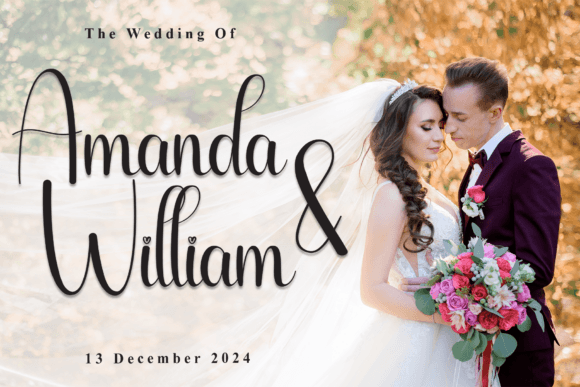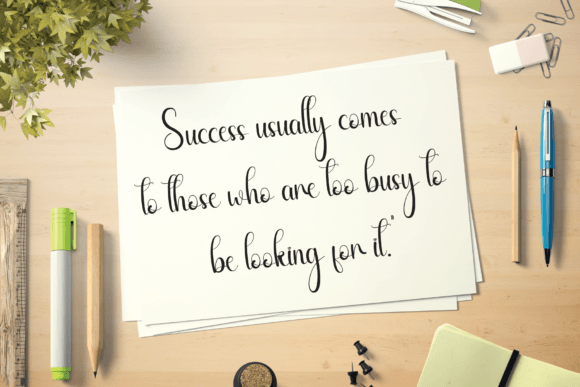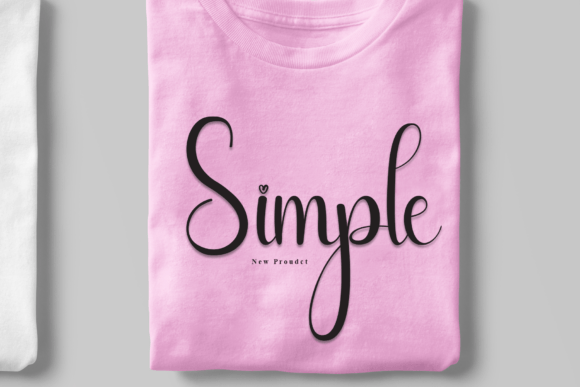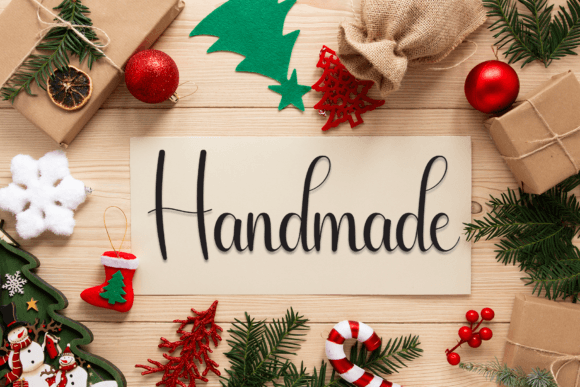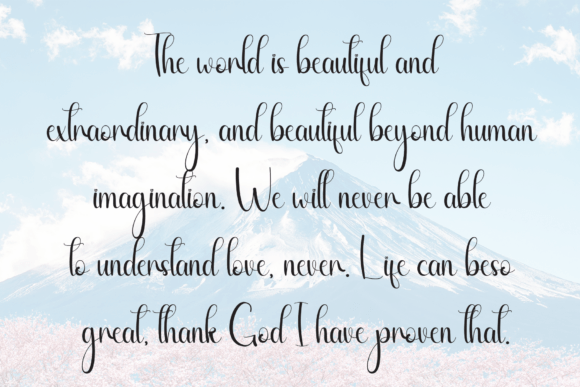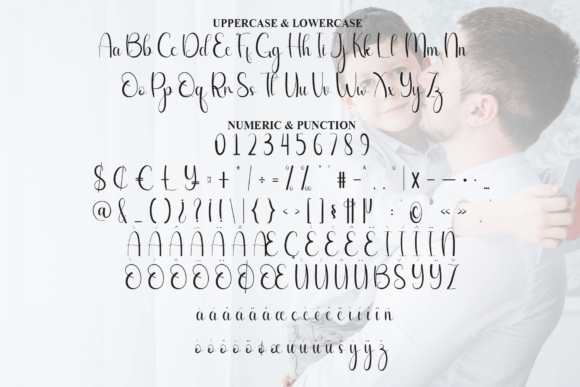
The Ultimate Guide to Daddy Font: Adding a Touch of Whimsy to Your Designs
I’ll never forget the time I was working on a wedding invitation project, and my client asked me to create a custom font that would capture the playful and romantic essence of their special day. I spent hours scouring the internet for the perfect font, but nothing seemed quite right. That’s when I stumbled upon Daddy Font, and it instantly became the perfect fit. In this article, I’ll share my love for this irresistibly charming handwritten display font and provide you with a comprehensive guide on how to use it in your designs.
What Makes Daddy Font So Special?
Daddy Font is a delightful and playful font that brings a sweet and friendly nature to any design project. Its endearing and relaxed features make it perfect for wedding invitations, greeting cards, and any other designs seeking an element of joy. With Daddy Font, you can effortlessly transform any project into a work of art that resonates with warmth and fun.
My Honest Review of Daddy Font
Here’s what I love about Daddy Font:
- ✨ Unique and playful character: Daddy Font has a one-of-a-kind personality that sets it apart from other fonts.
- ✅ Ease of use: This font is incredibly easy to use, even for those who are new to design.
- 💕 Emotional connection: Daddy Font has a way of evoking emotions and creating a connection with your audience.
- 🎨 Versatility: This font can be used in a variety of design projects, from wedding invitations to greeting cards and more.
While Daddy Font is an amazing font, there are a few small quirks to be aware of:
- 🤔 Limited use in formal designs: Due to its playful nature, Daddy Font may not be the best fit for formal designs or projects that require a more professional tone.
- ⚠️ Some letters may require adjustment: As with any font, some letters may require adjustment to ensure proper spacing and alignment.
The Story Behind Daddy Font
Daddy Font was created by a talented designer who wanted to create a font that would bring joy and playfulness to design projects. Inspired by the beauty of handwritten letters and the charm of vintage typography, Daddy Font was born. With its unique and playful character, Daddy Font has become a favorite among designers and crafters alike.
| What is Daddy Font? | Daddy Font is a handwritten display font that adds a playful and whimsical touch to design projects. |
| Is Daddy Font suitable for formal designs? | No, Daddy Font is best suited for informal designs, such as wedding invitations, greeting cards, and social media graphics. |